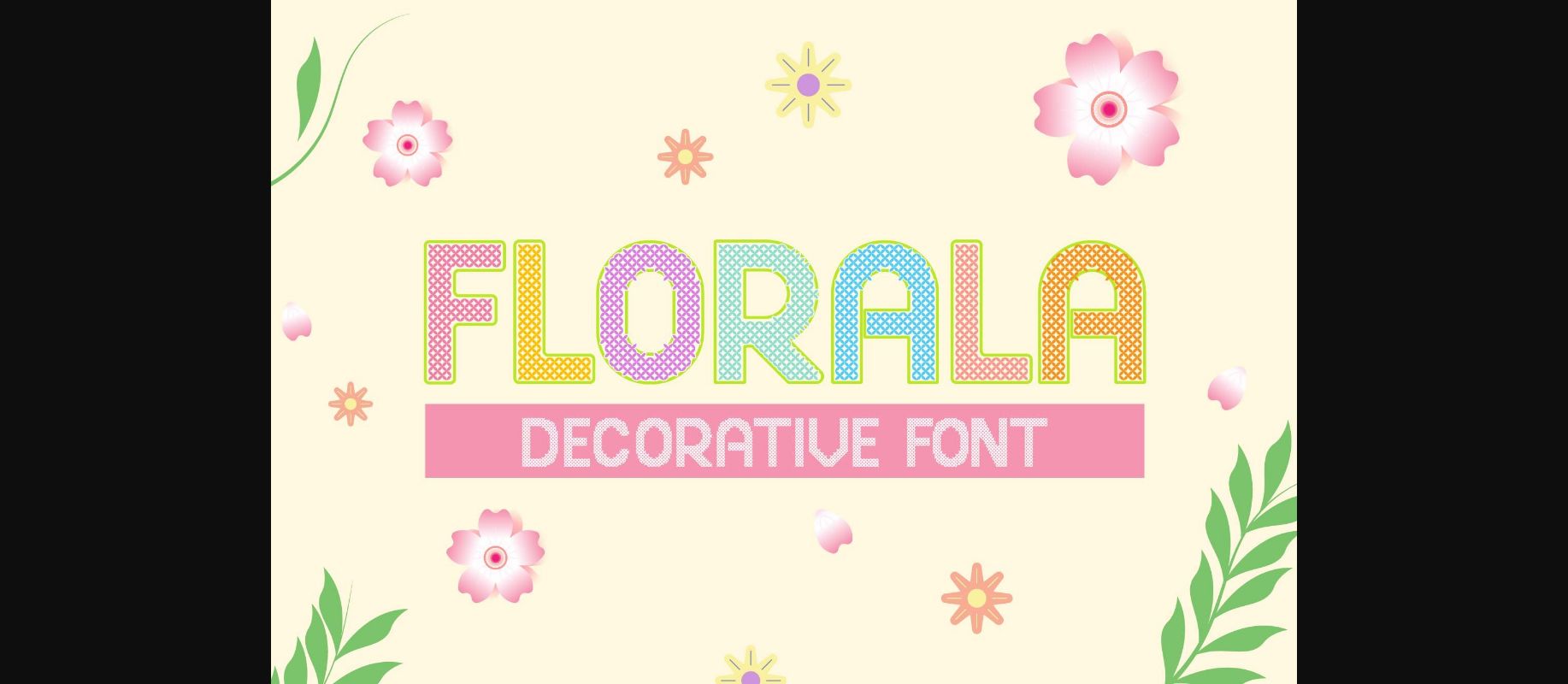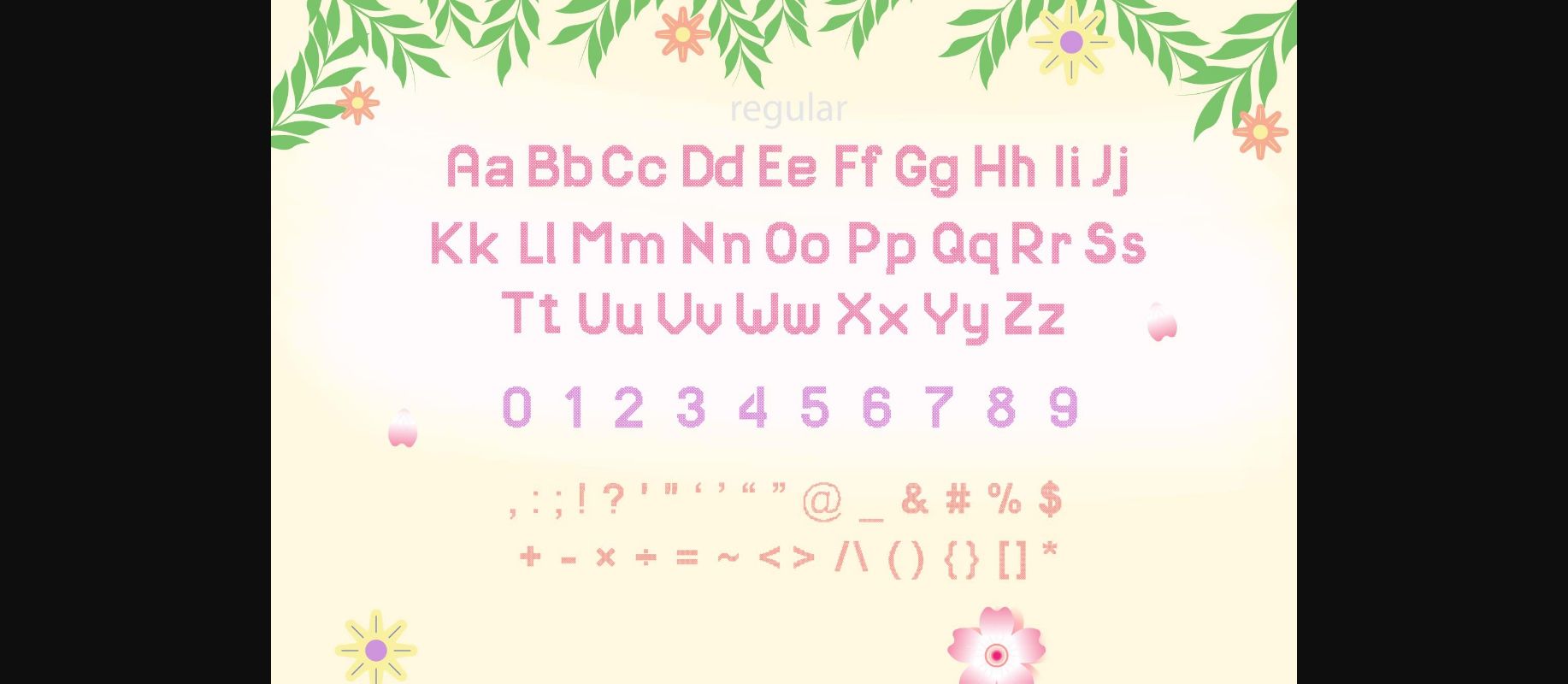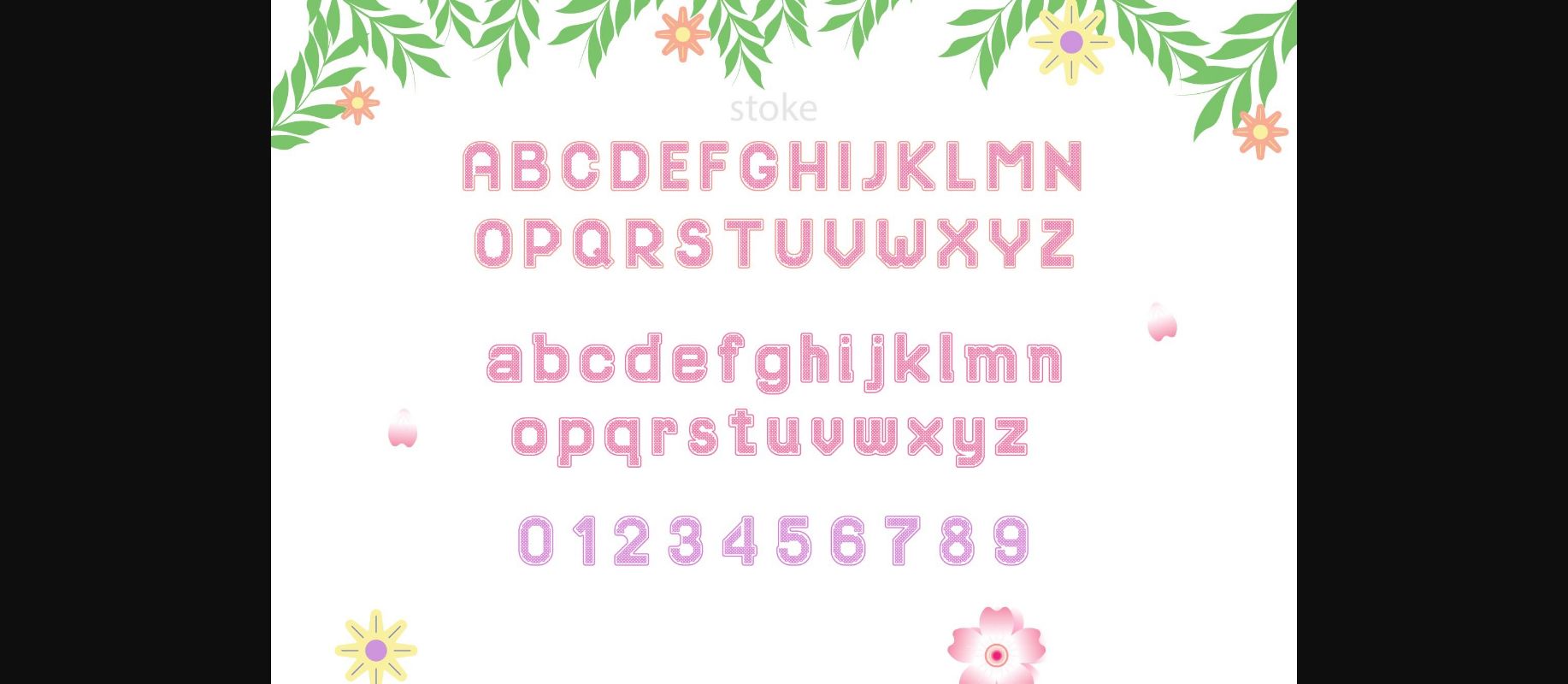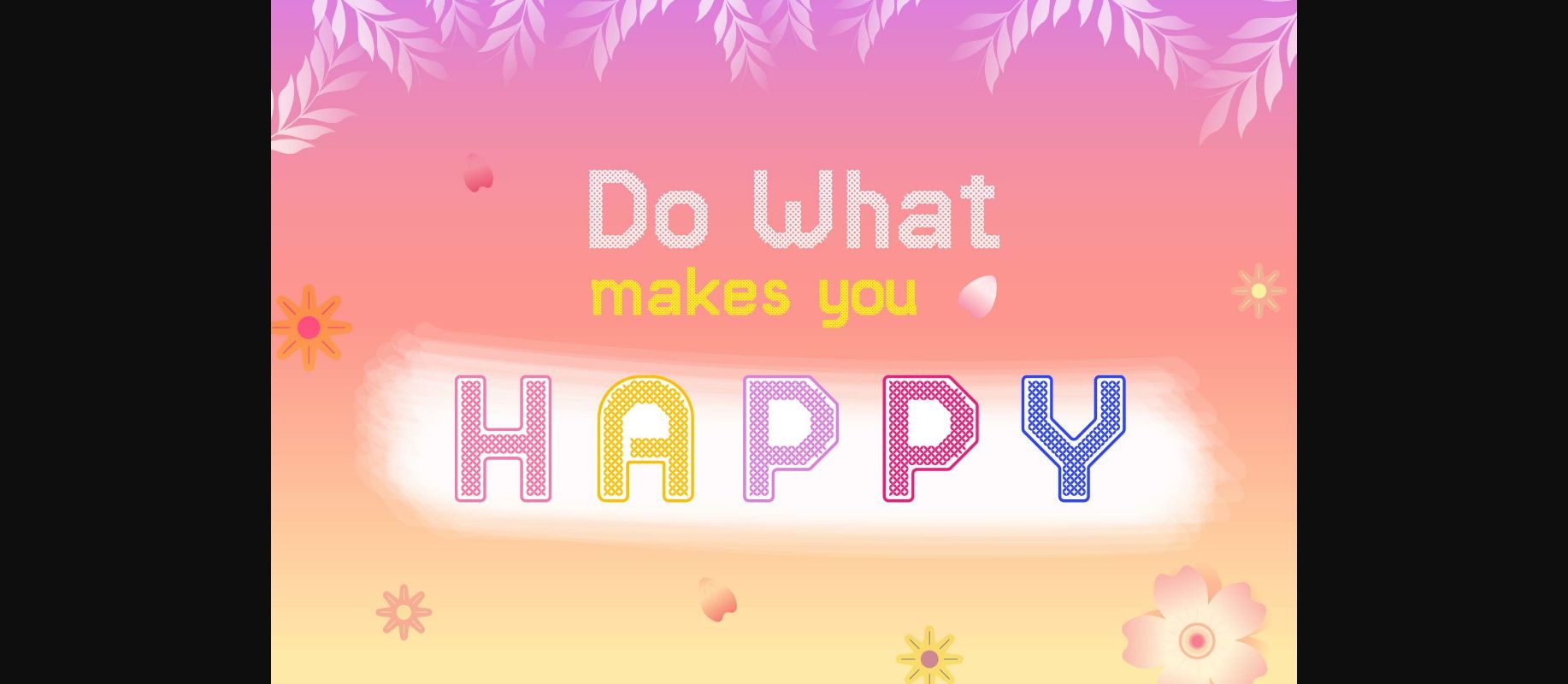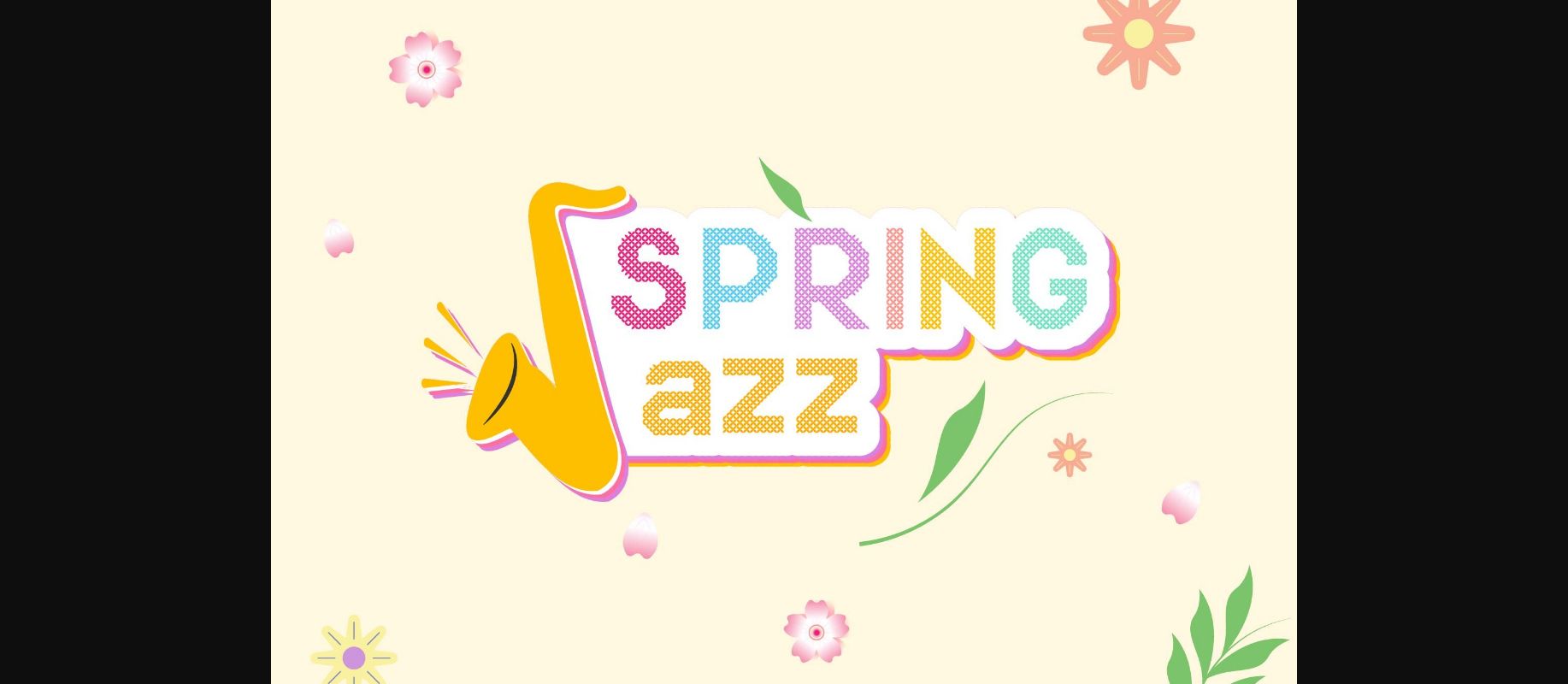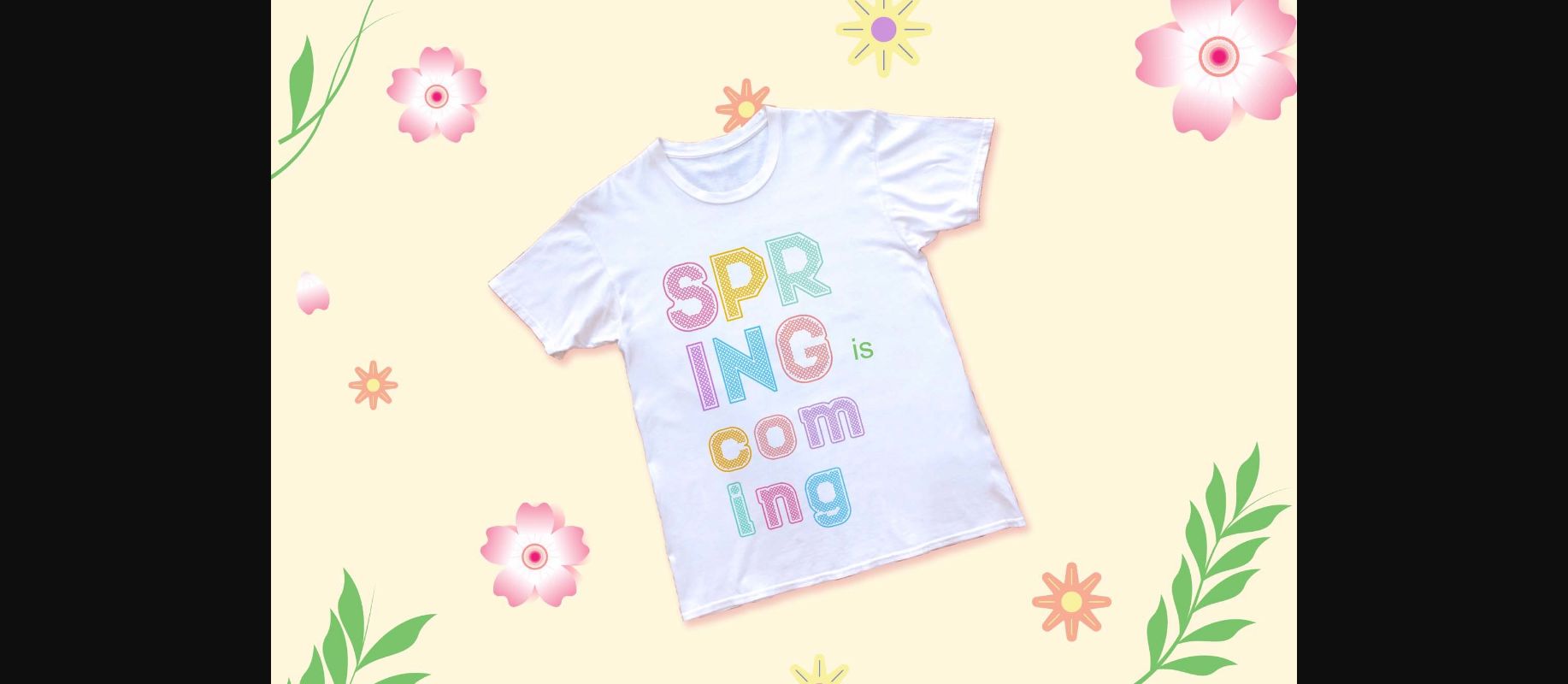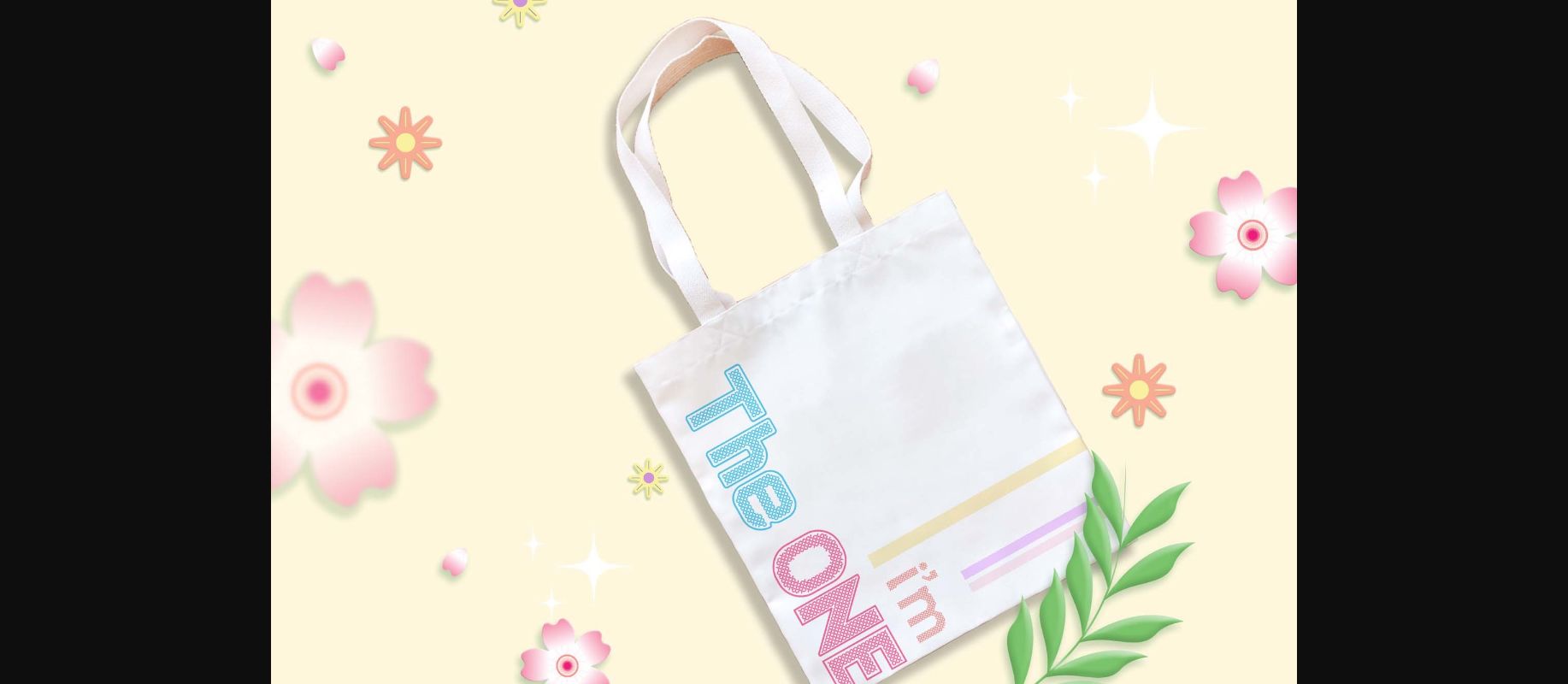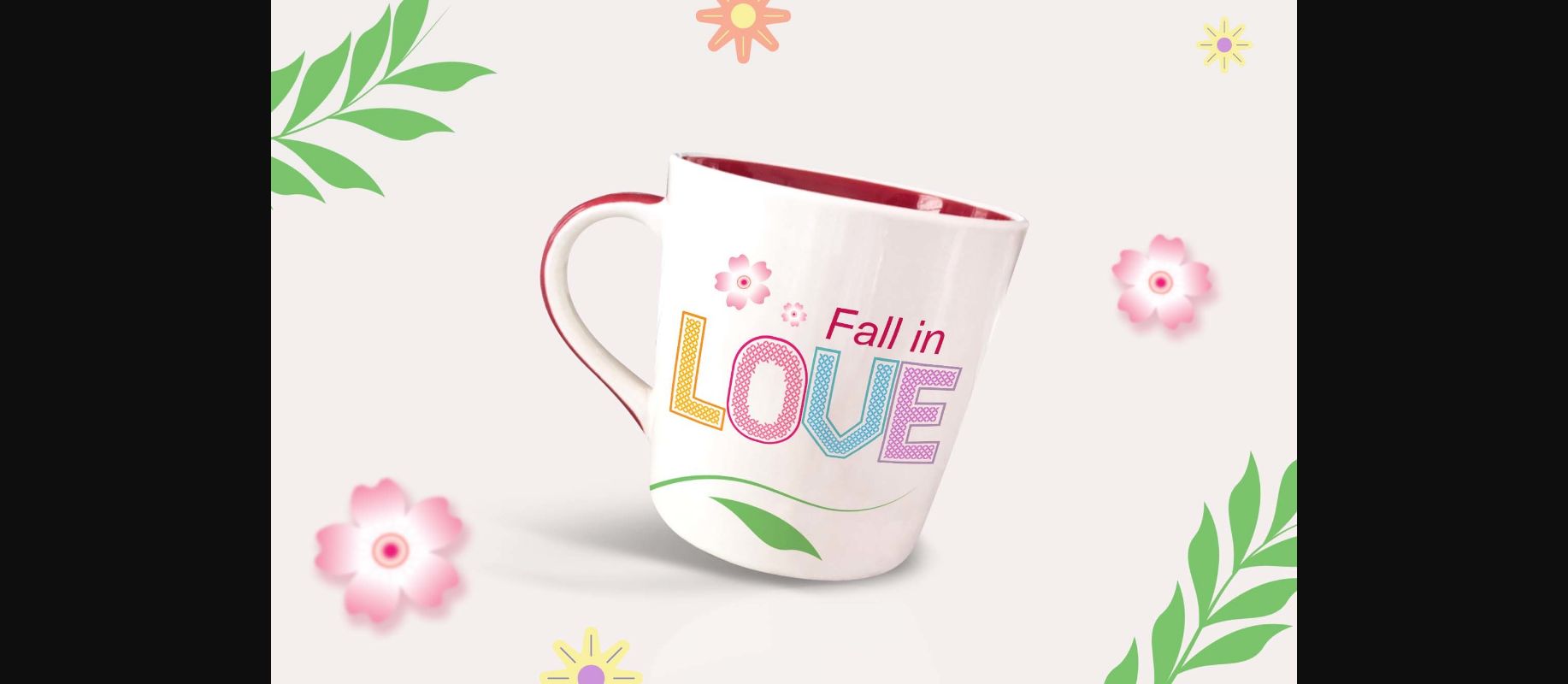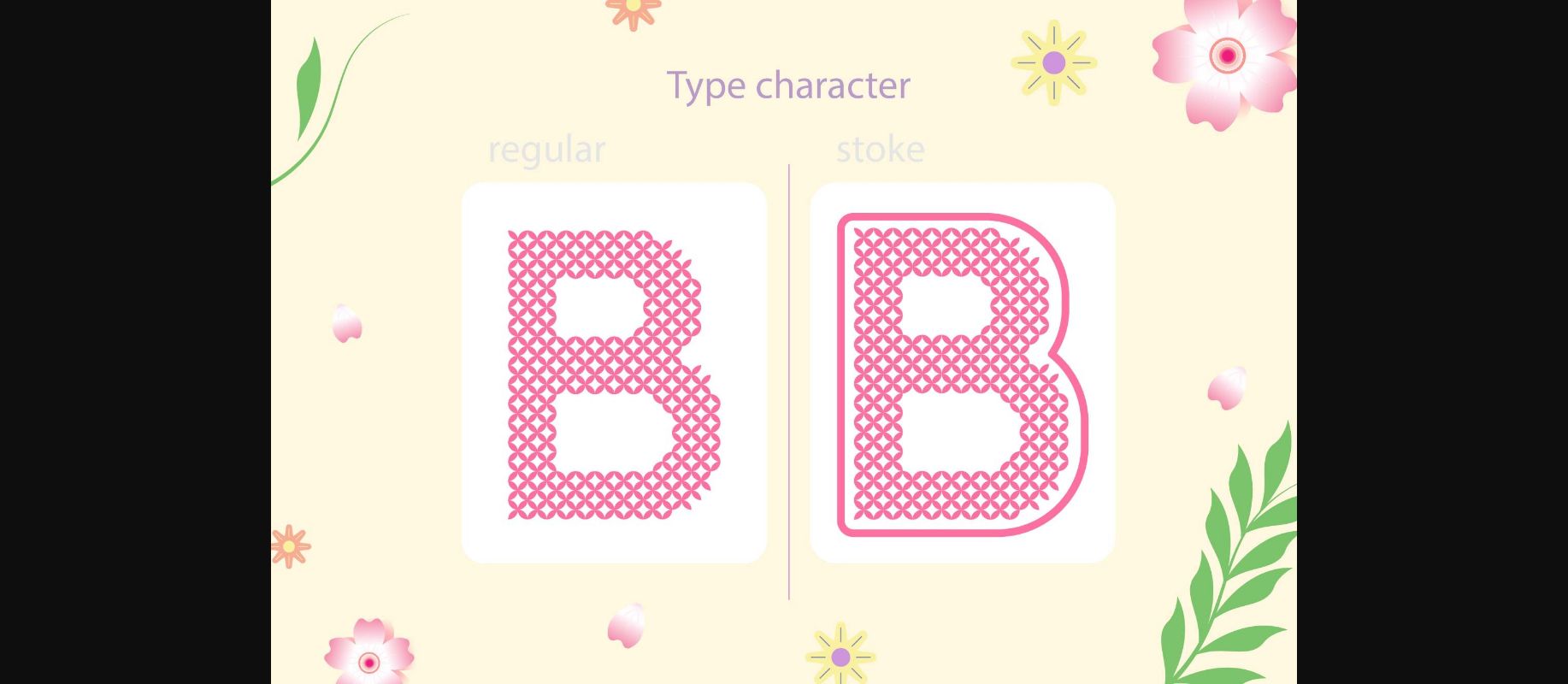
Florala is regular and stoke lettered decorative font. Whether you use it for cartoon related designs, spring crafts or just any creation that requires a lovely touch, this font will be a great choice.